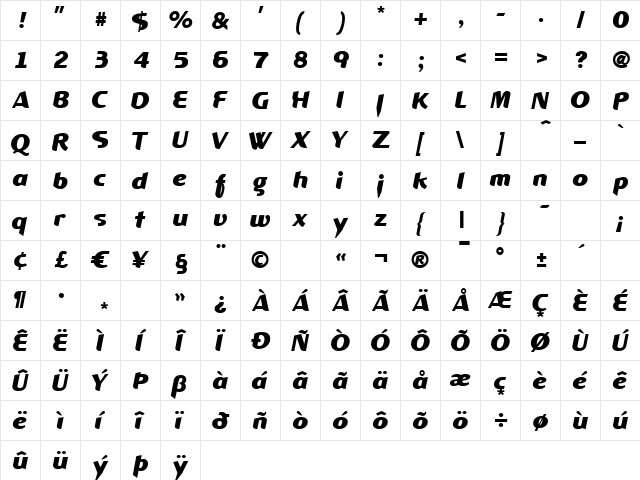
Xyperformulaic1.1 RB Regular Font Preview
Xyperformulaic1.1 RB Regular
Design Context for Xyperformulaic1.1 RB Typeface
Xyperformulaic1.1 RB is a composed and adaptable typeface that performs quietly and consistently across a wide range of design contexts.